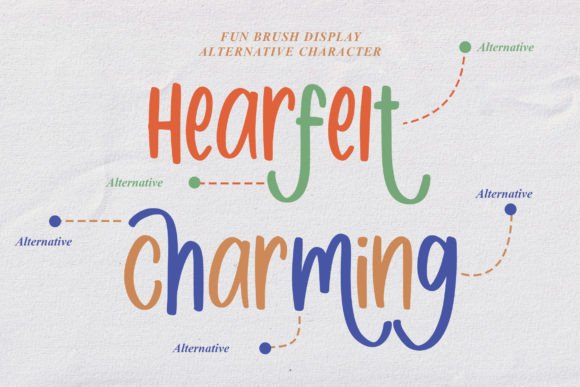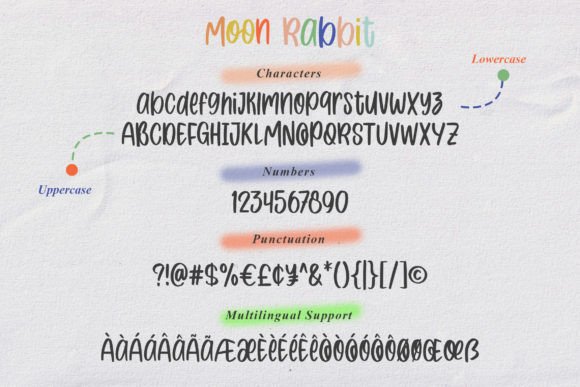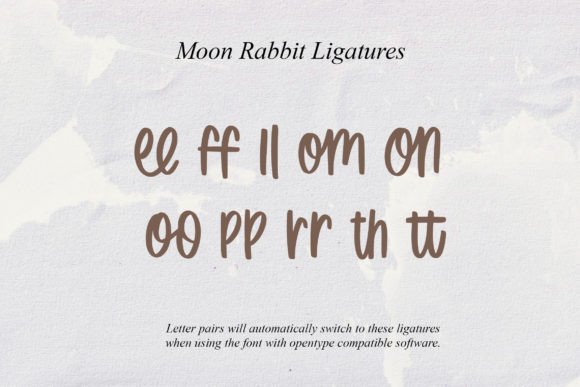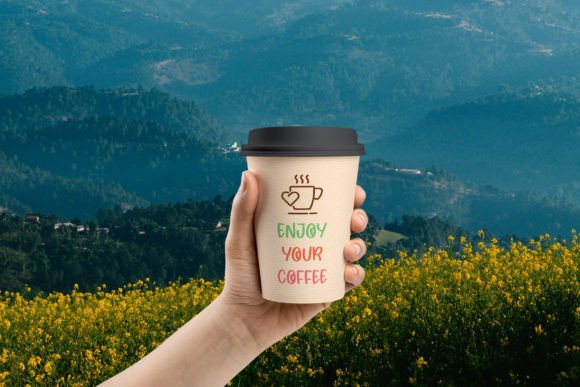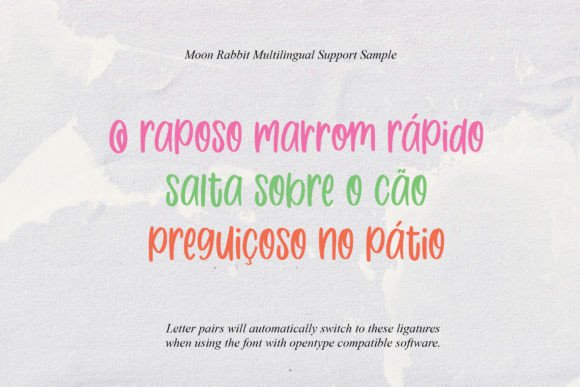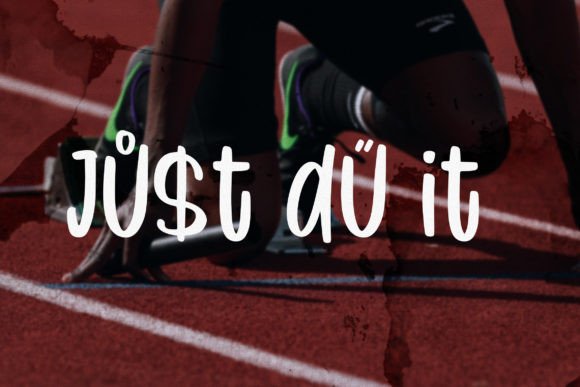
Introduction to Moon Rabbit Font
Moon Rabbit – a super fun and playful hand-lettered typeface.
It is perfect for headings, flyers, greeting cards, product packaging, book cover, printed quotes, logotype, apparel designs, album covers, etc Moon Rabbit is PUA encoded which means you can access all the glyphs and ligatures with ease.
Key Features of Moon Rabbit Font
Why Choose Moon Rabbit Font?
Moon Rabbit Font offers exceptional quality and versatility, making it a valuable addition to your design toolkit. Whether you’re creating for personal projects or commercial use, Moon Rabbit Font delivers professional results.